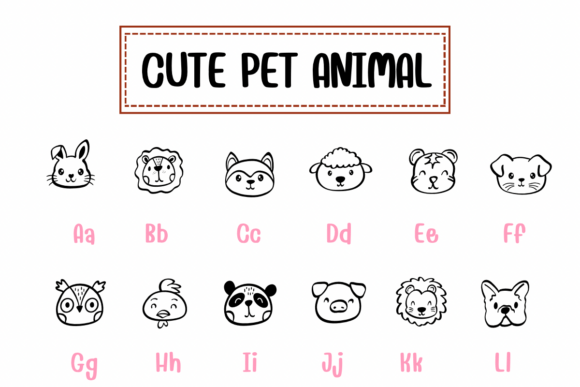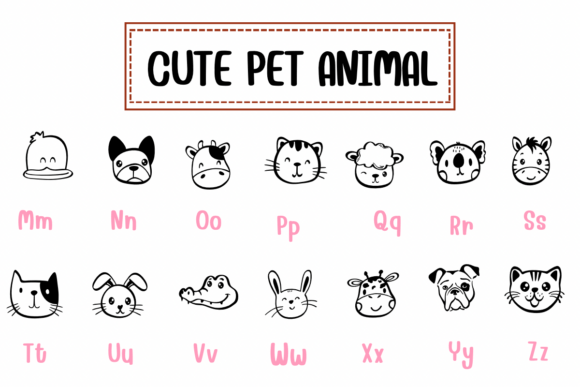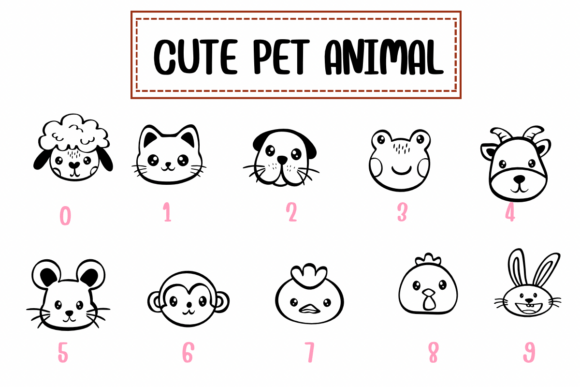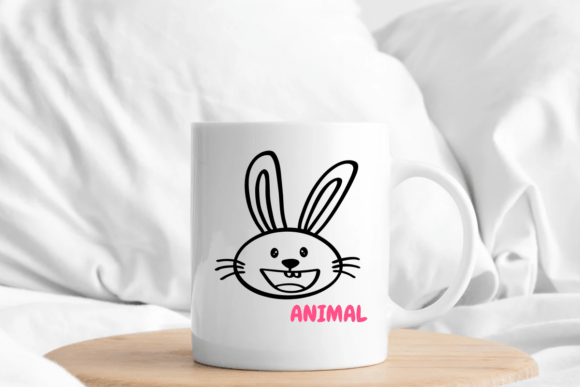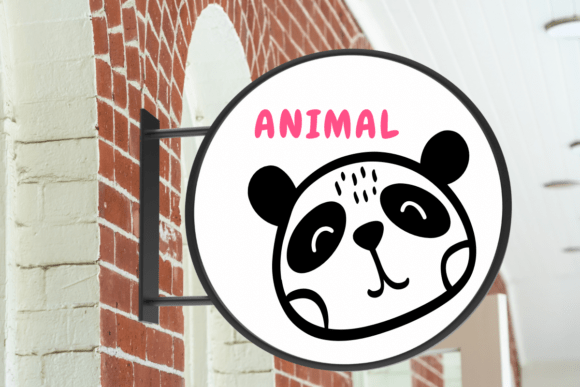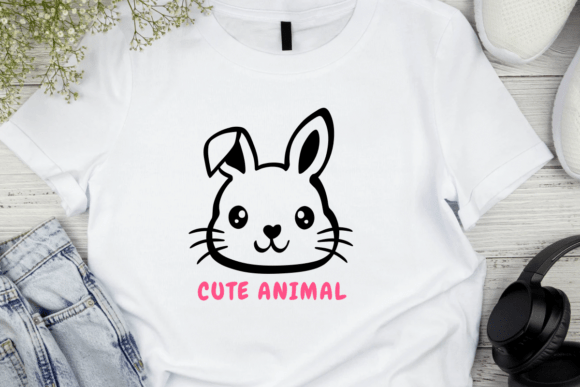
Cute Pet Animal Font: Add a Touch of Whimsy to Your Creative Projects
Are you a designer, crafter, or DIY enthusiast looking for a unique and playful font to enhance your creative projects? Look no further than the Cute Pet Animal Font, a delightful dingbats font that features a charming sketch style. This adorable font is perfect for adding a touch of whimsy to your wedding invitations, DIY crafts, decorations, logos, and many other creative ideas.
What is Cute Pet Animal Font?
Cute Pet Animal Font is a dingbats font that features a collection of cute and playful pet animal illustrations, including cats, dogs, birds, and more. The font is designed in a sketch style, giving it a charming and hand-drawn feel that’s perfect for a variety of creative projects. With its unique and eye-catching designs, this font is sure to add a touch of personality to your work.
Uses for Cute Pet Animal Font
The Cute Pet Animal Font is incredibly versatile and can be used for a wide range of creative projects, including:
- Wedding invitations: Add a touch of whimsy to your wedding stationery with this adorable font.
- DIY crafts: Use the font to create custom signs, banners, and decorations for your next DIY project.
- Logos: Create a unique and memorable logo for your business or brand with this playful font.
- Decorations: Use the font to create custom wall art, garlands, and other decorations for your home or office.
- Stationery: Add a touch of personality to your stationery, including greeting cards, thank-you cards, and more.
Benefits of Using Cute Pet Animal Font
There are many benefits to using the Cute Pet Animal Font in your creative projects, including:
- Unique and eye-catching designs: The font features a unique and playful design that’s sure to grab attention.
- Versatile: The font can be used for a wide range of creative projects, from wedding invitations to logos.
- Customizable: You can use the font to create custom designs and illustrations that reflect your personal style.
Tips for Using Cute Pet Animal Font
Here are a few tips for using the Cute Pet Animal Font in your creative projects:
- Experiment with different colors: The font looks great in a variety of colors, so don’t be afraid to experiment and find the perfect hue for your project.
- Mix and match: Combine the font with other fonts and design elements to create a unique and eye-catching design.
- Use it sparingly: Use the font sparingly to add a touch of whimsy to your design, rather than overwhelming the entire project.
Key Features of Cute Pet Animal Font
- Dingbats font featuring cute pet animal illustrations
- Sketch style design for a charming and hand-drawn feel
- Perfect for wedding invitations, DIY crafts, logos, and more
- Unique and eye-catching designs
- Customizable for a personal touch